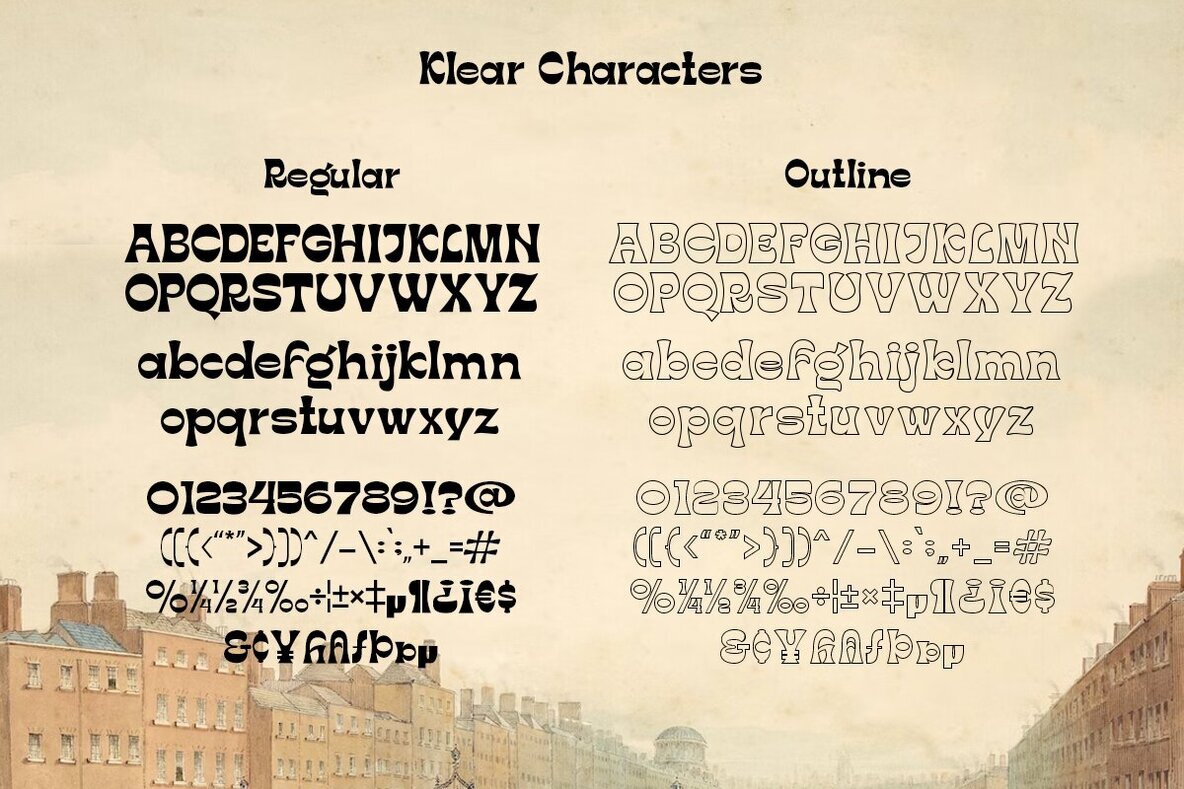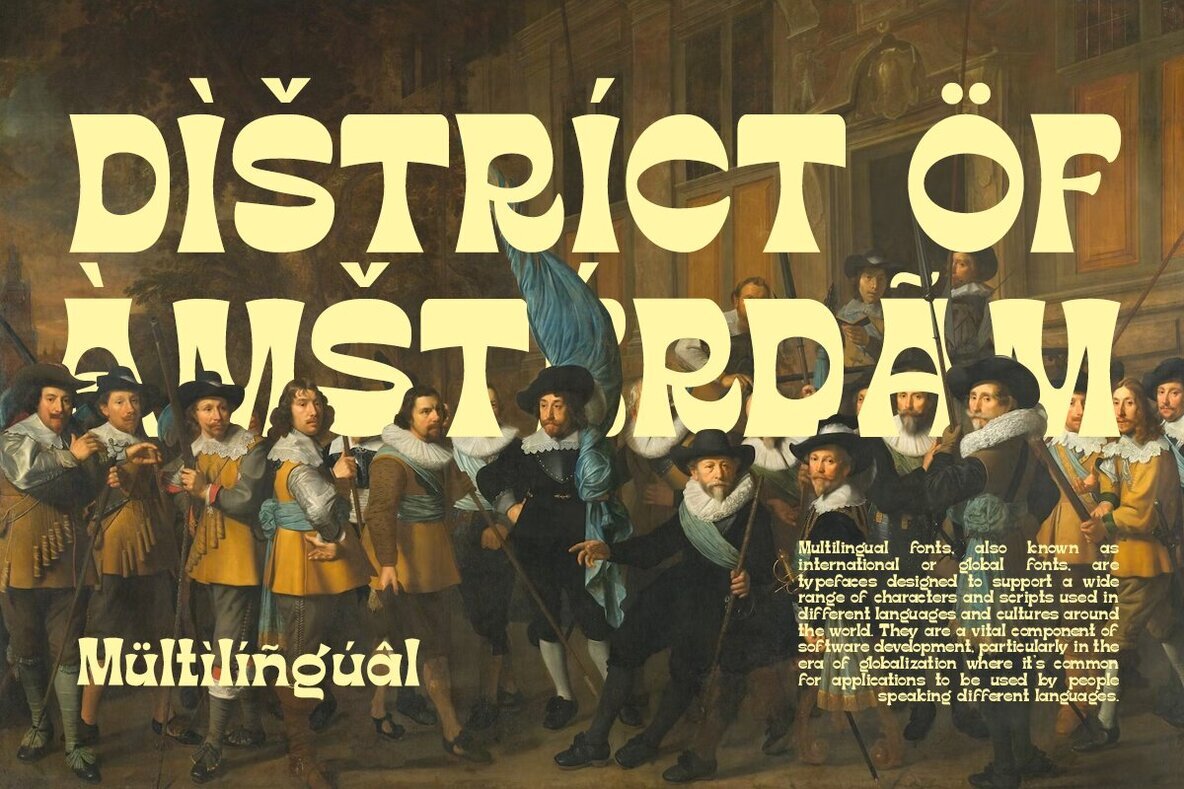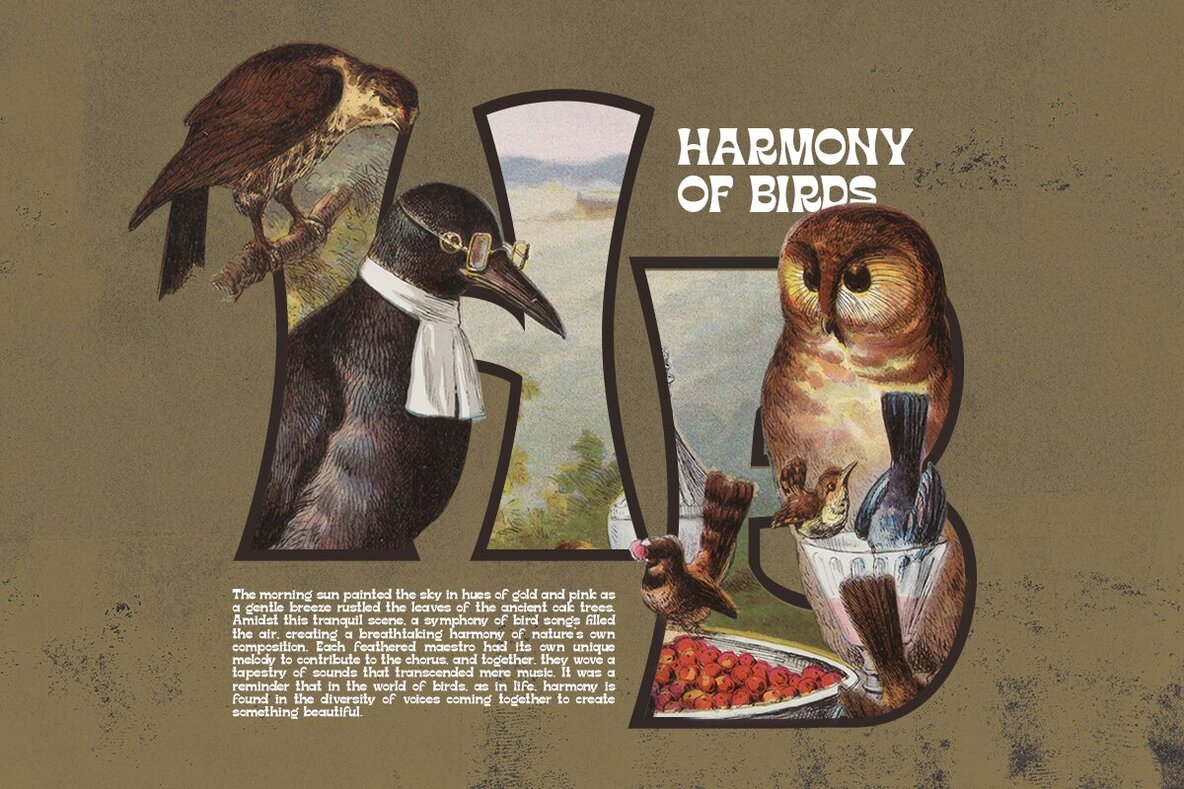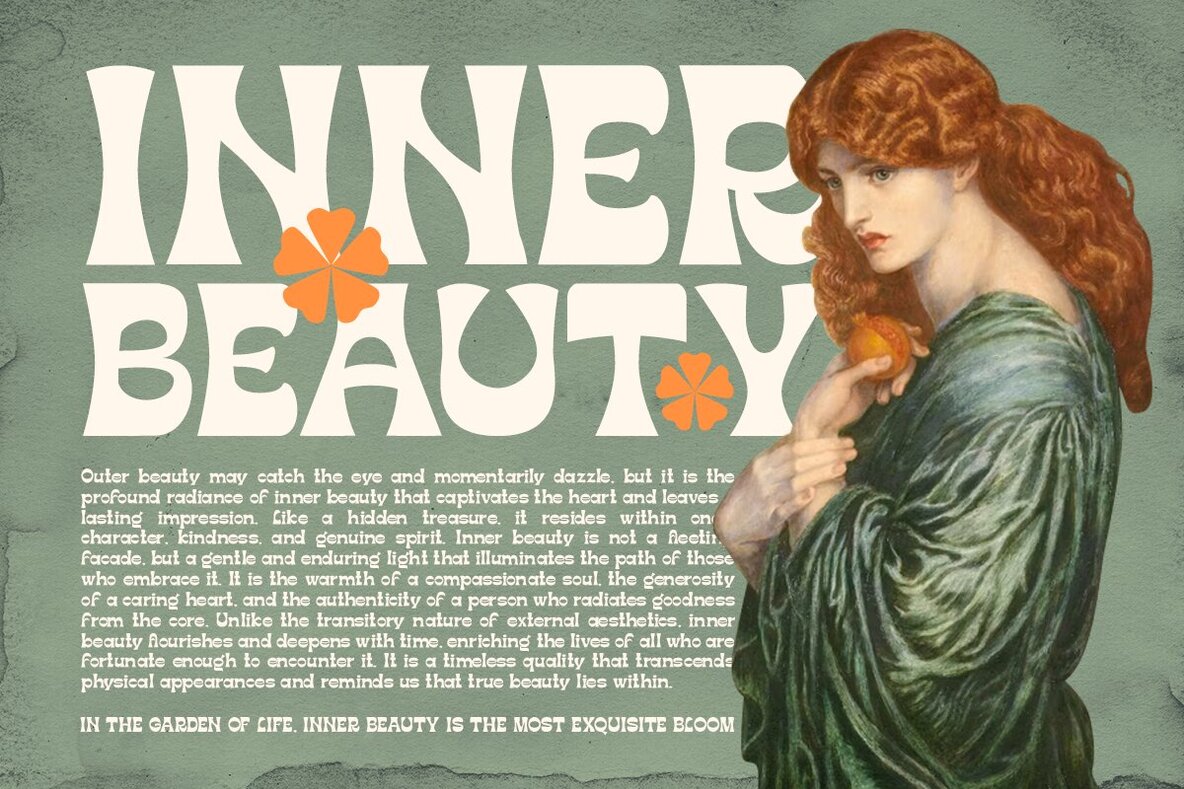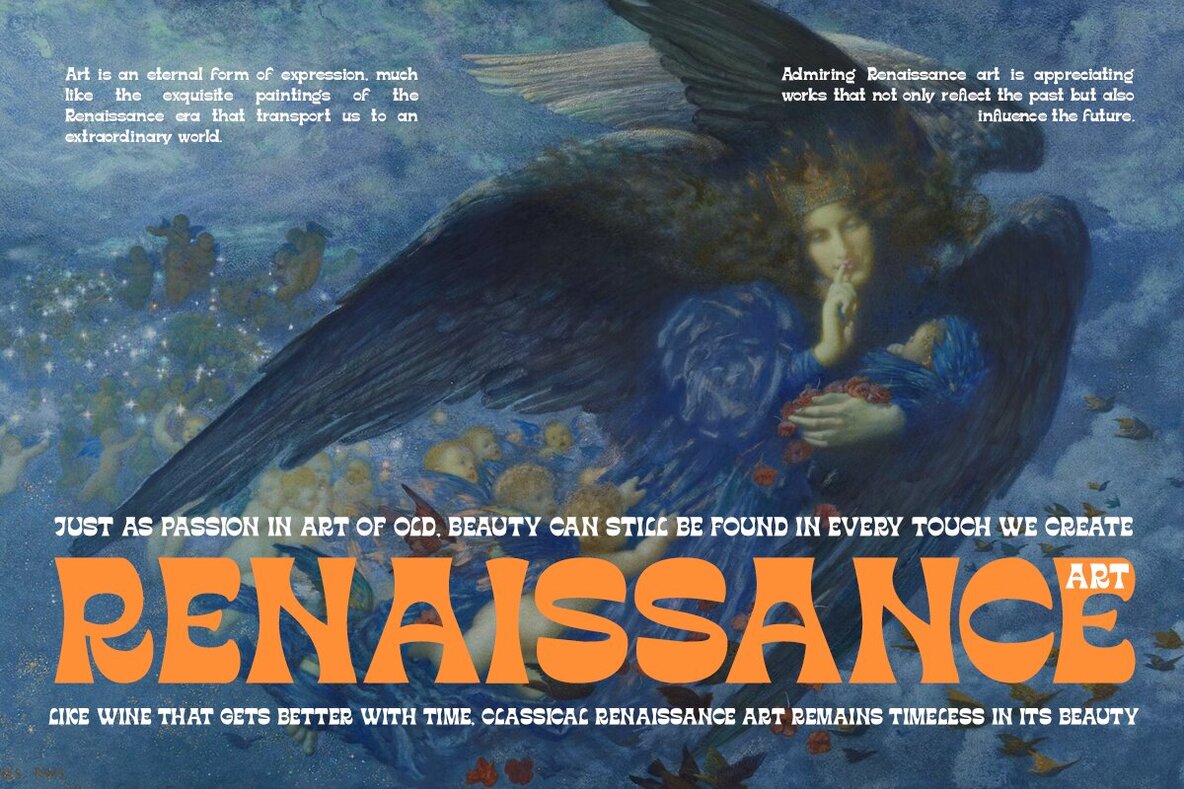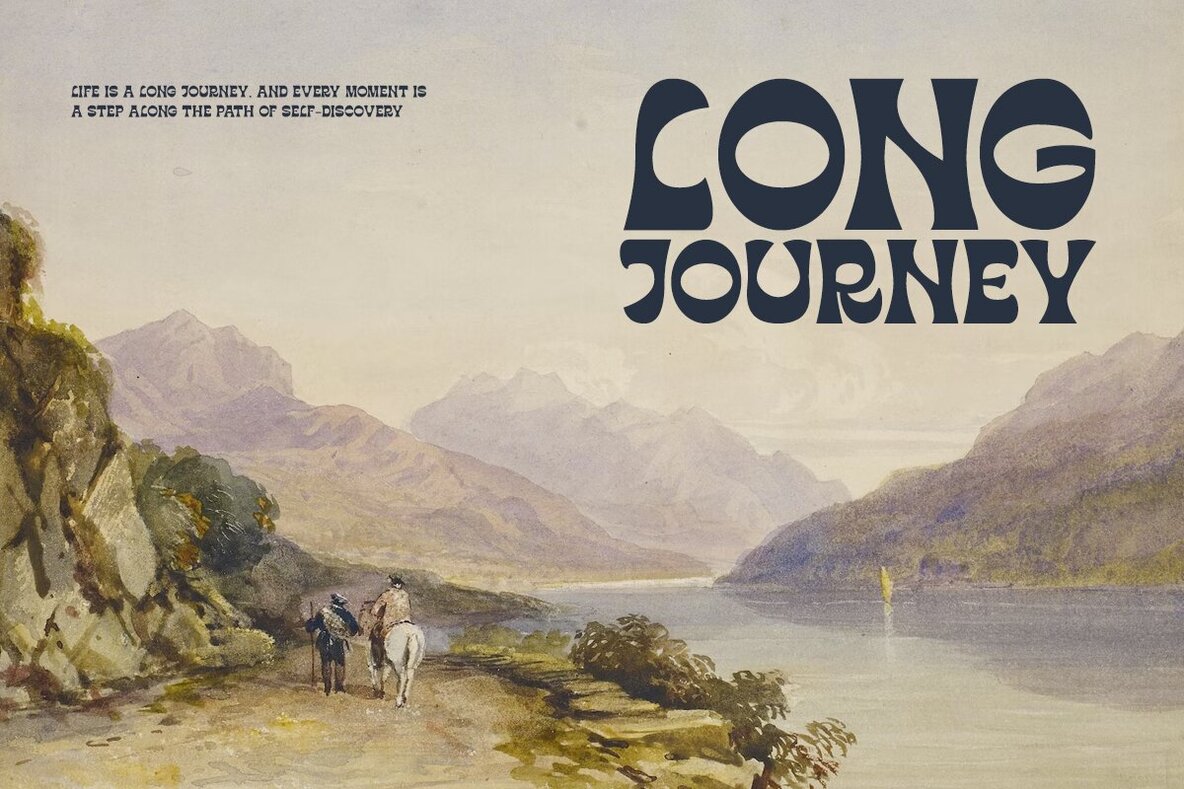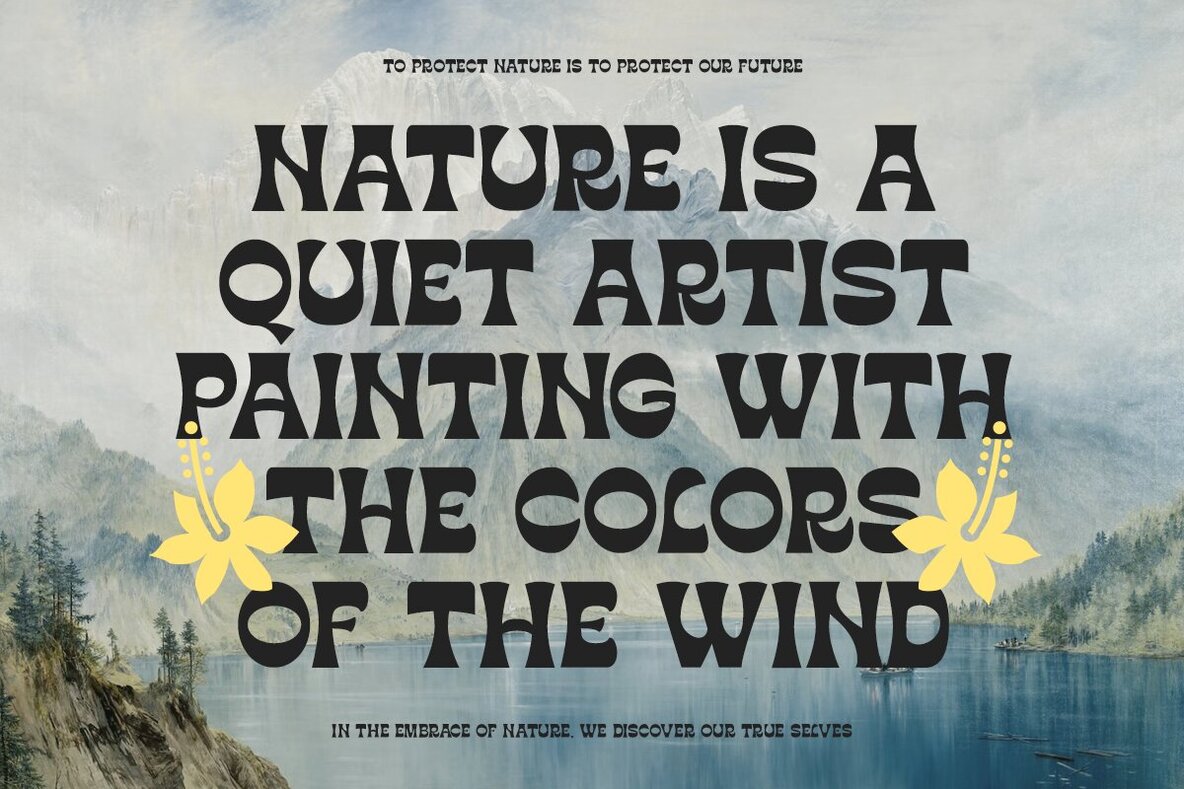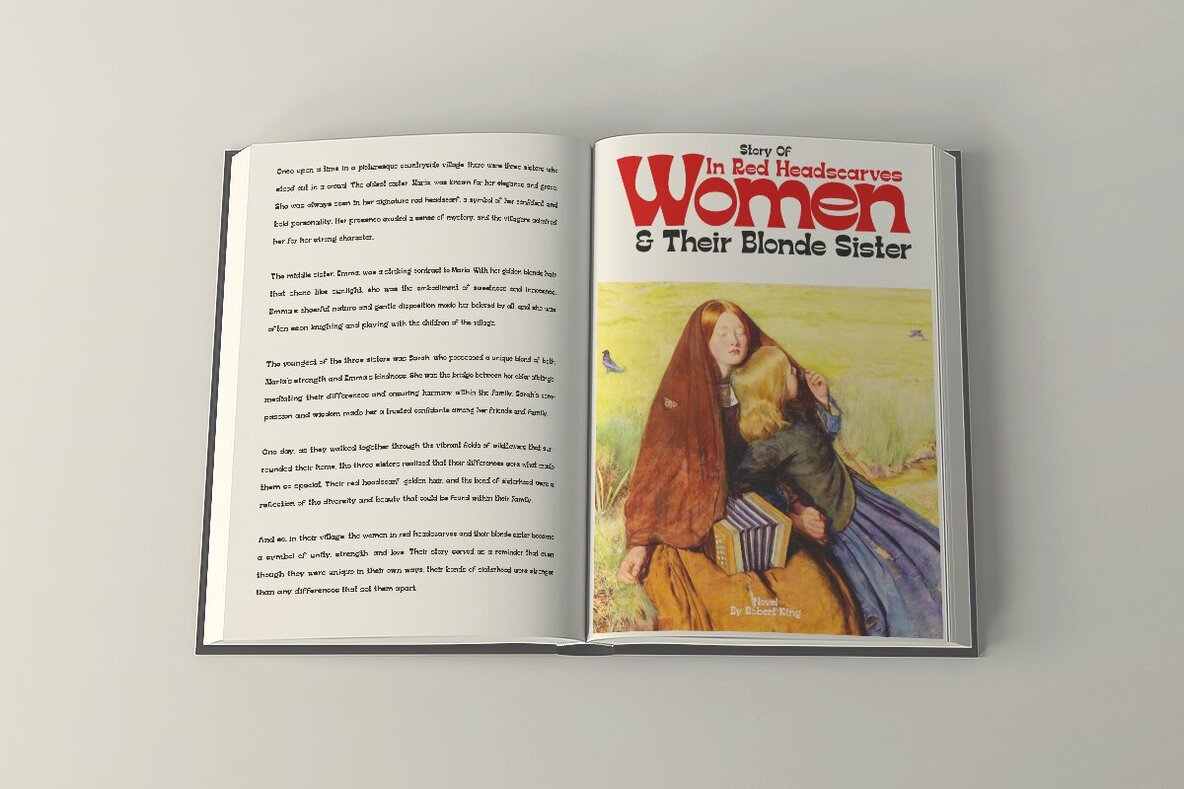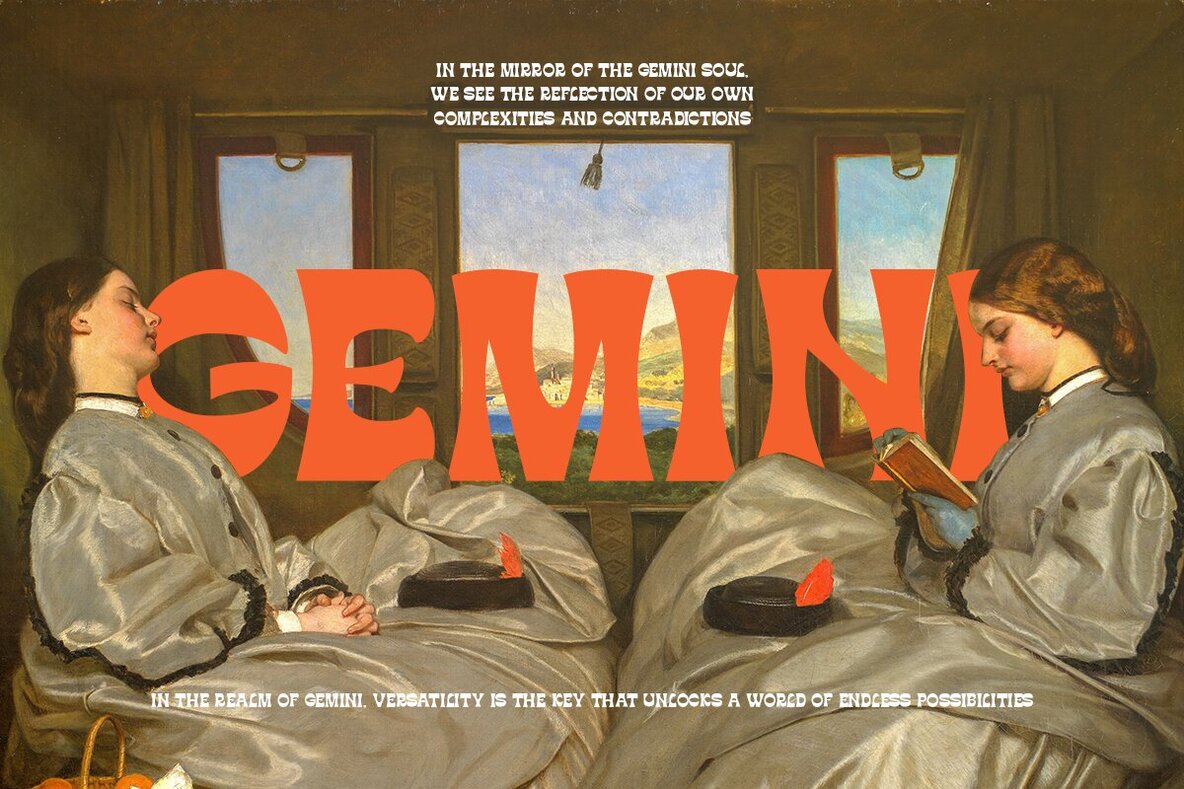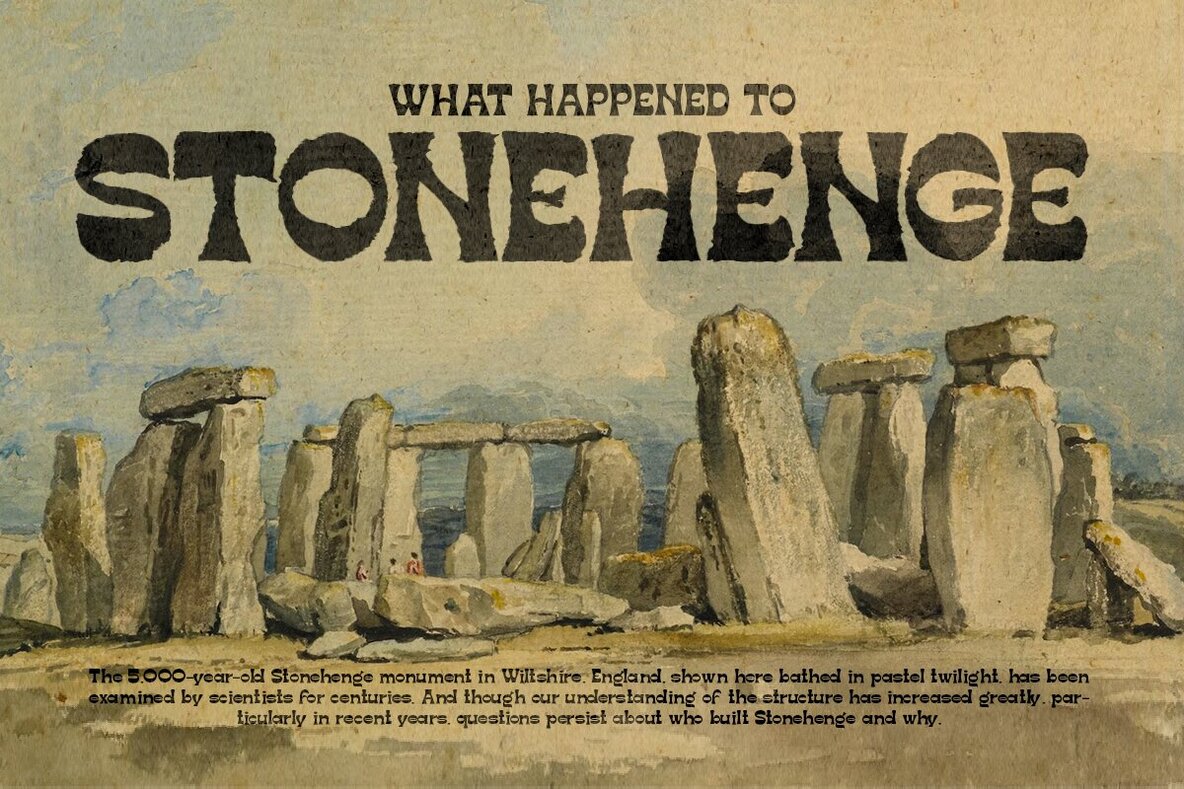
Klear Font
Klear Regular
Klear Outline
Klear is a typeface that challenges design norms, inspired by the graceful flow of Art Nouveau. This typeface is a perfect blend of quirkiness and elegance, suitable for both formal and avant-garde projects. With its Regular and Outline styles, Klear offers a fresh canvas for your creativity to shine. Supports multiple languages including Danish, English, Estonian, Filipino, Finnish, French, Friulian, Galician, German, Gusii, Indonesian, Irish, Italian, Luxembourgish, Norwegian Bokmål, Norwegian Nynorsk, Nyankole, Oromo, Portuguese, Romansh, Rombo, Spanish, Swedish, Swiss-German, and Uzbek (Latin).Klear Typeface: Art Nouveau-Inspired Elegance